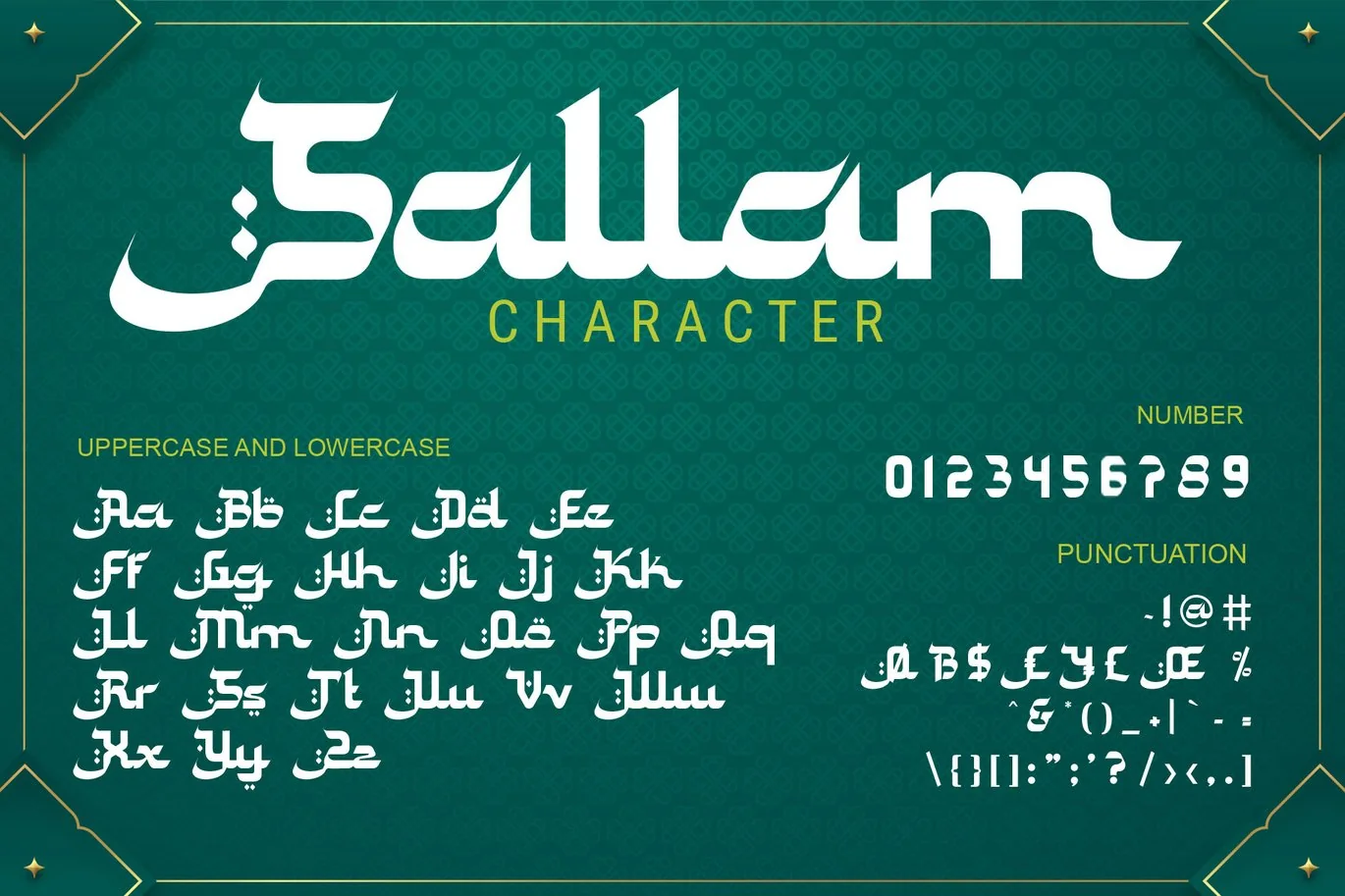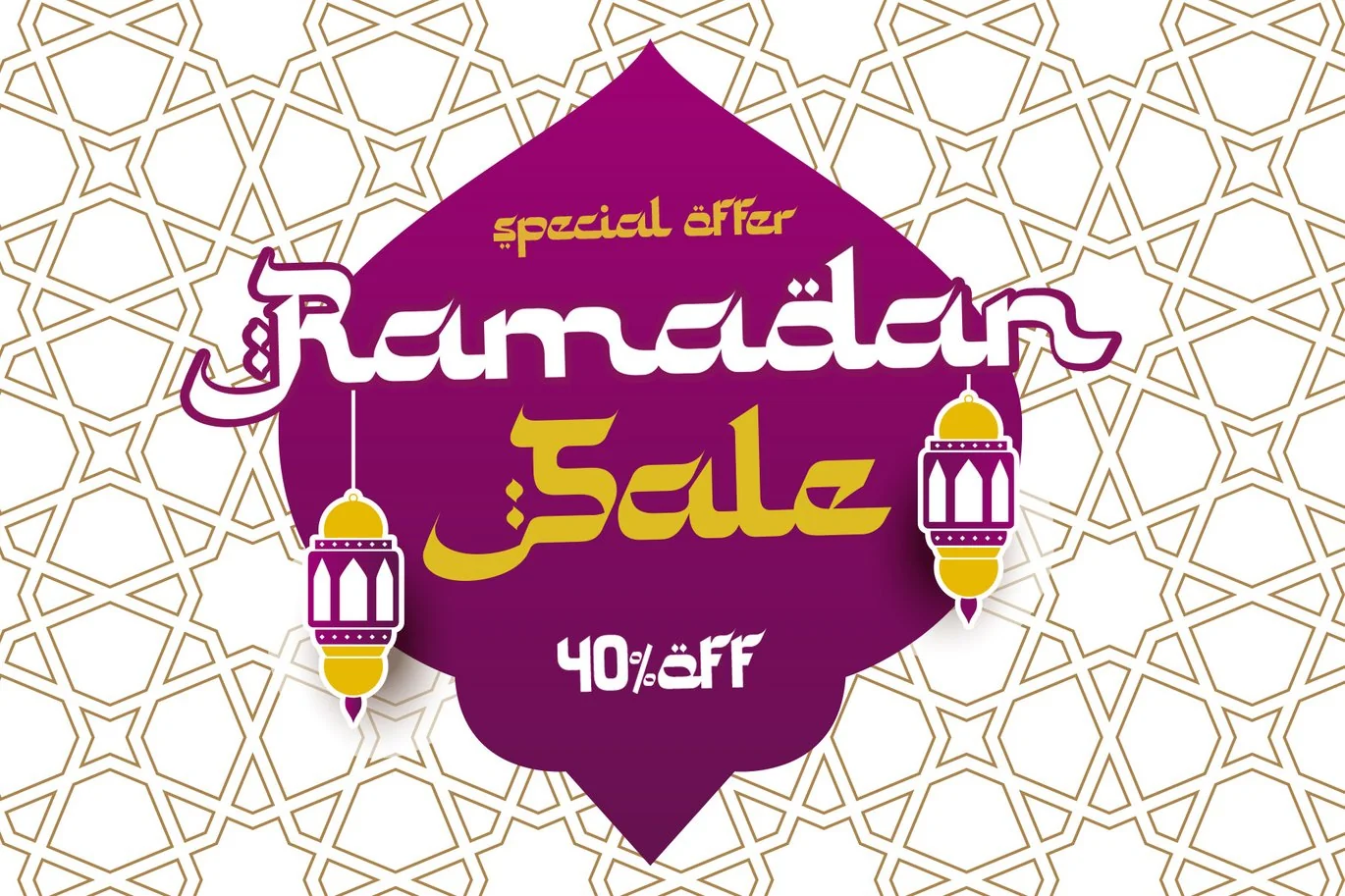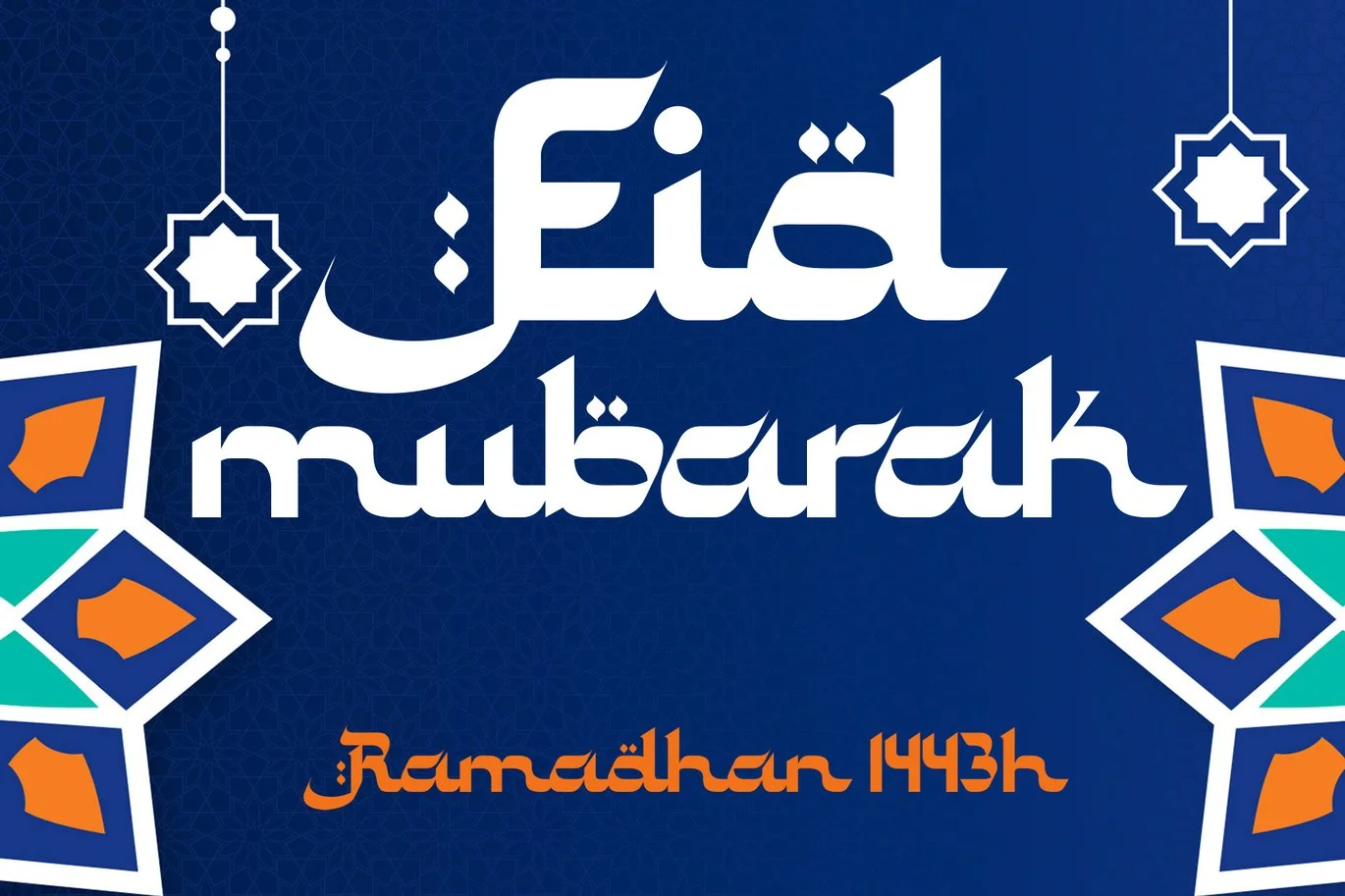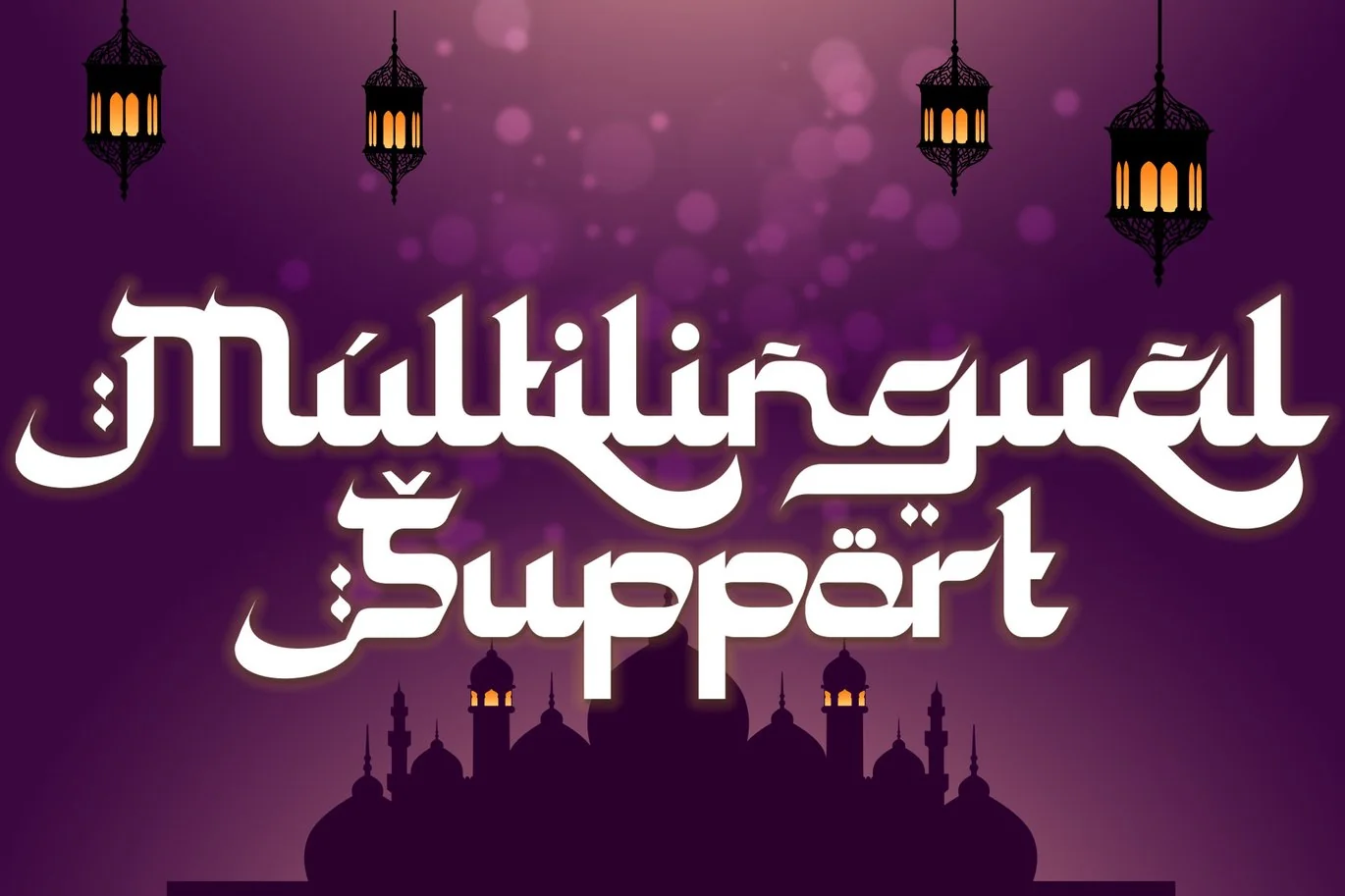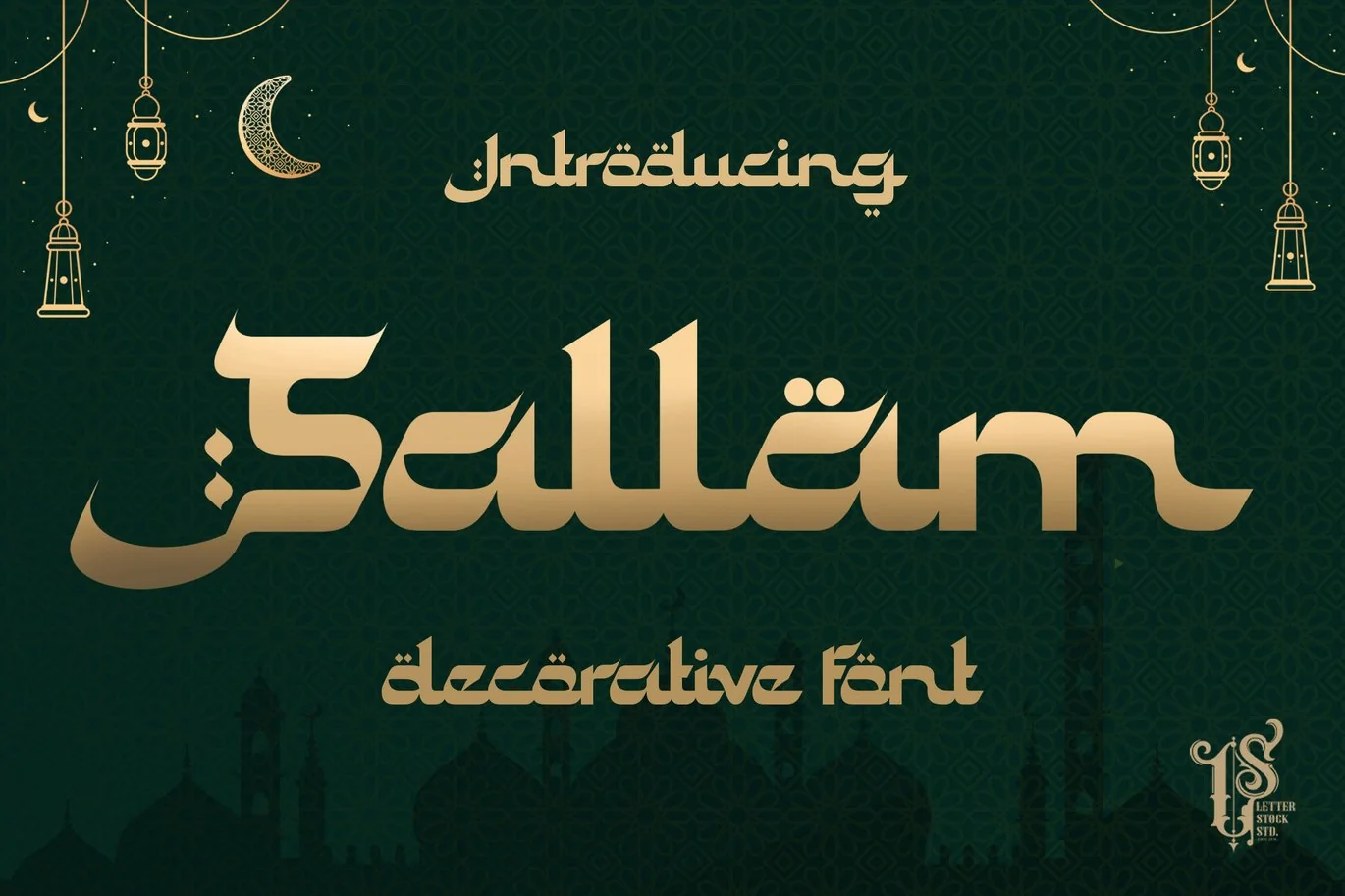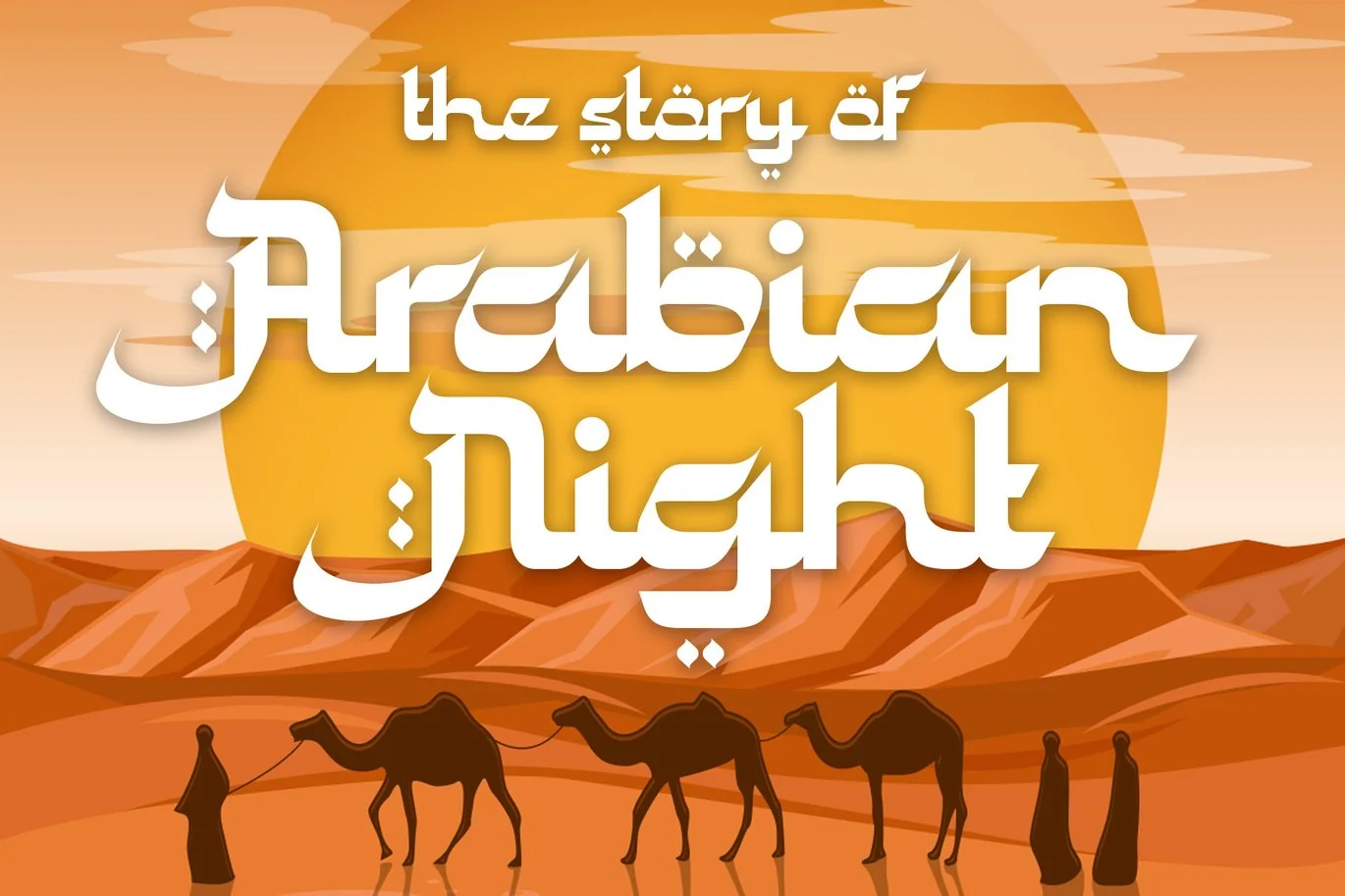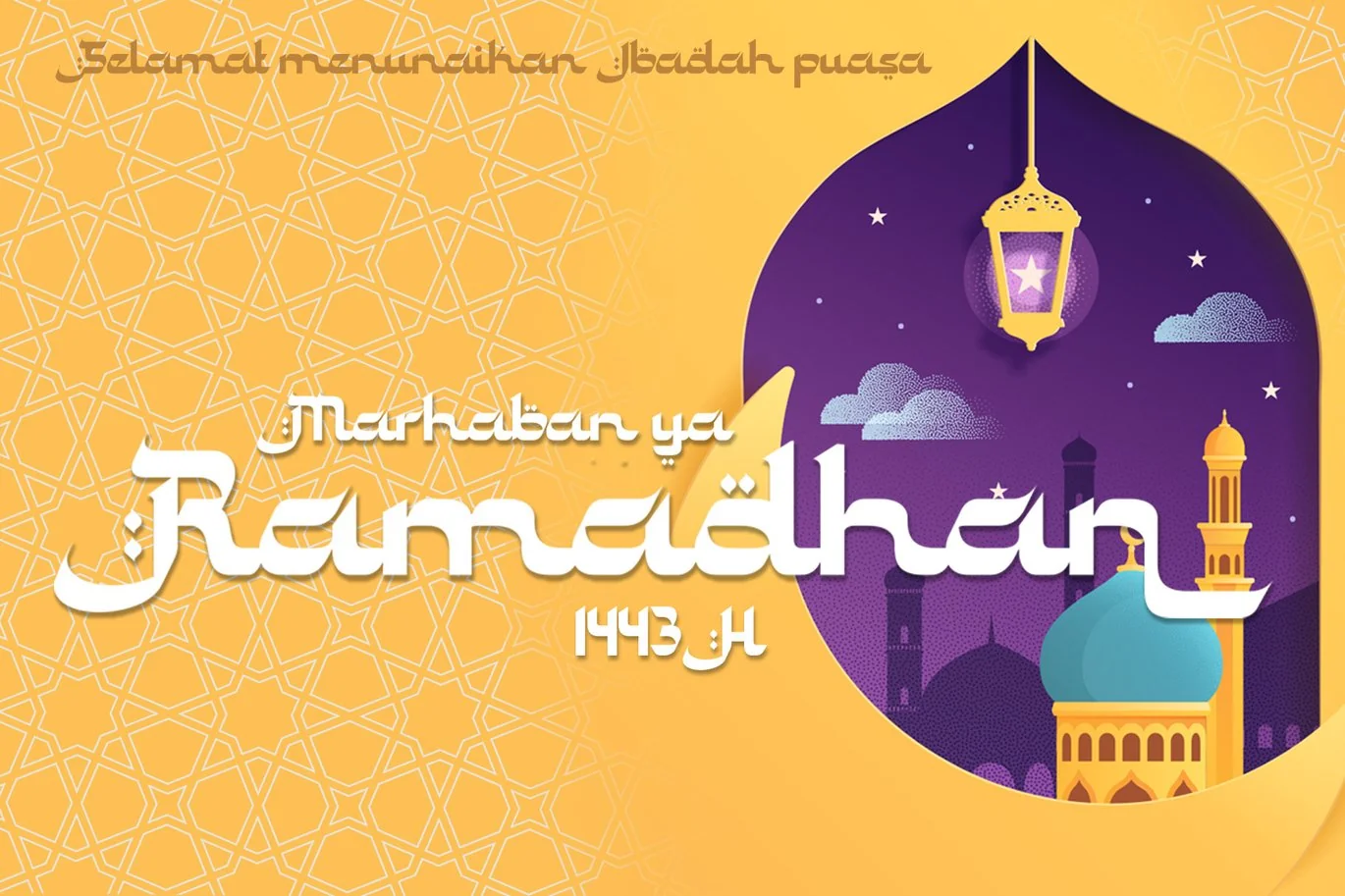
Sallam – Decorative Font
Sallam – Font
Sallam is a decorative font that was inspired by middle east style design that i saw online, and it was crafted by hand to add a natural handmade feeling and i make it clean with pentool.
If you looking for decorative font with middle east tyle for your title or even branding and logotype, Ar Rayyan is a great choice for that purpose.
Sallamn font is very good looking in logotype, labels, decorative lettering, playful design, product packaging, invitation titled, advertising and others.